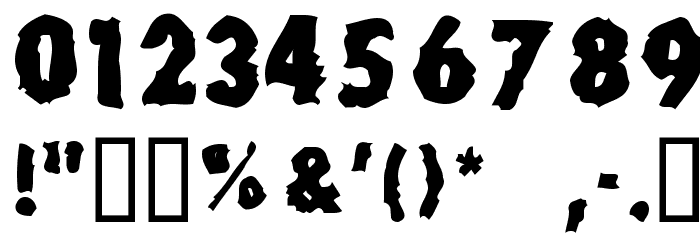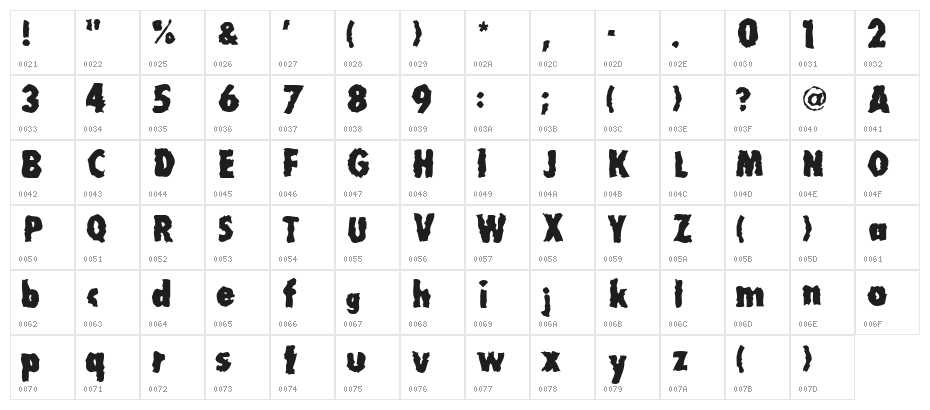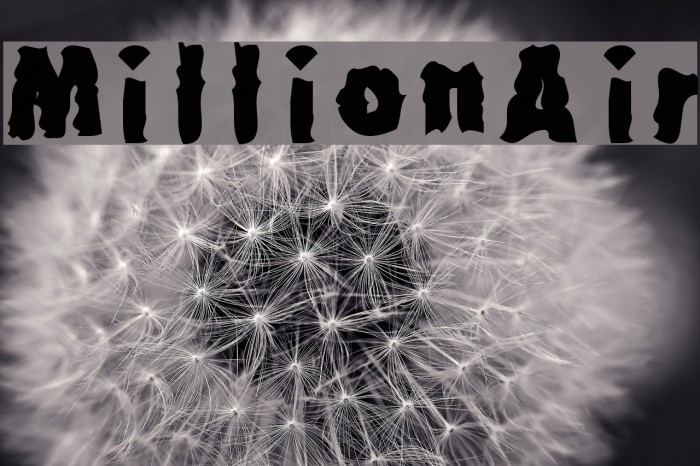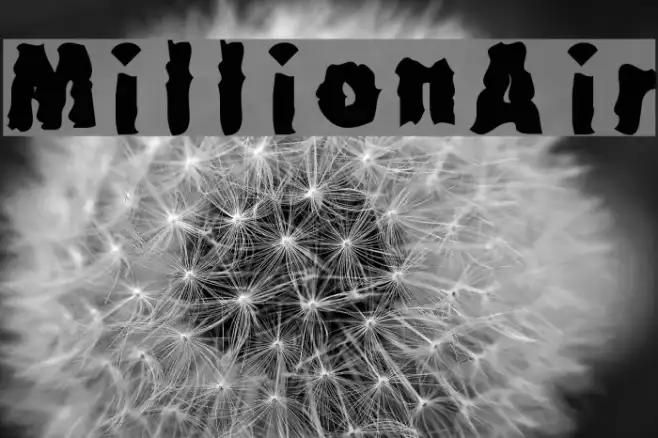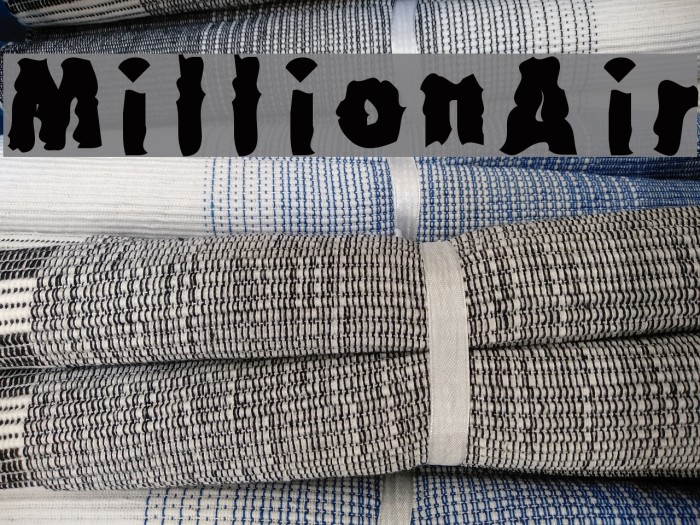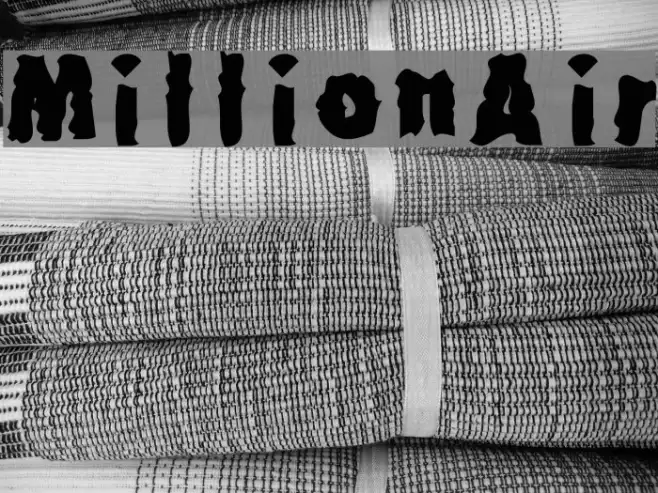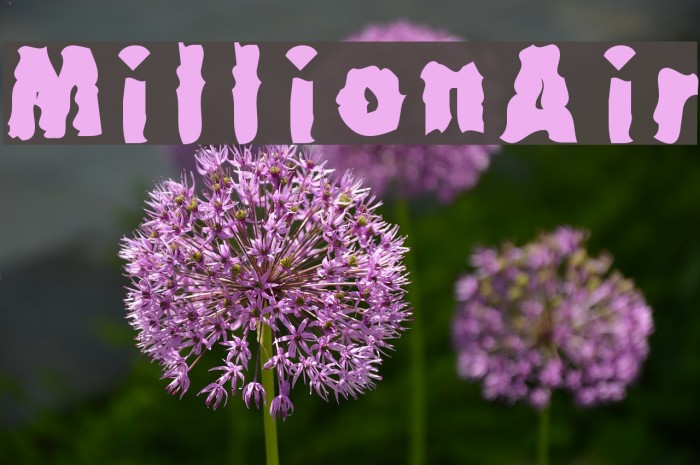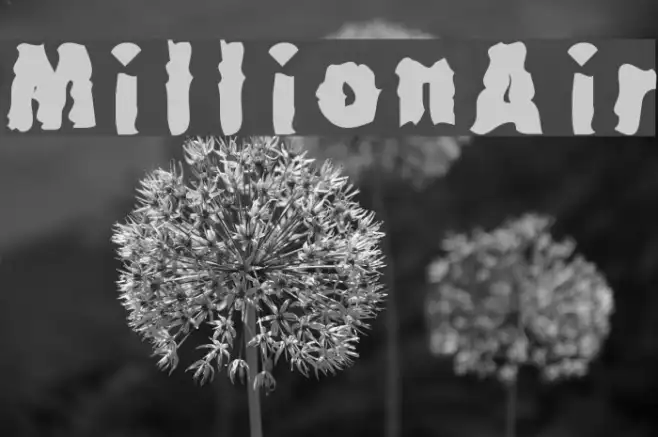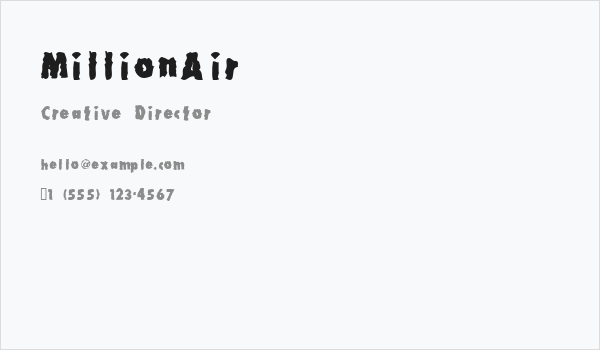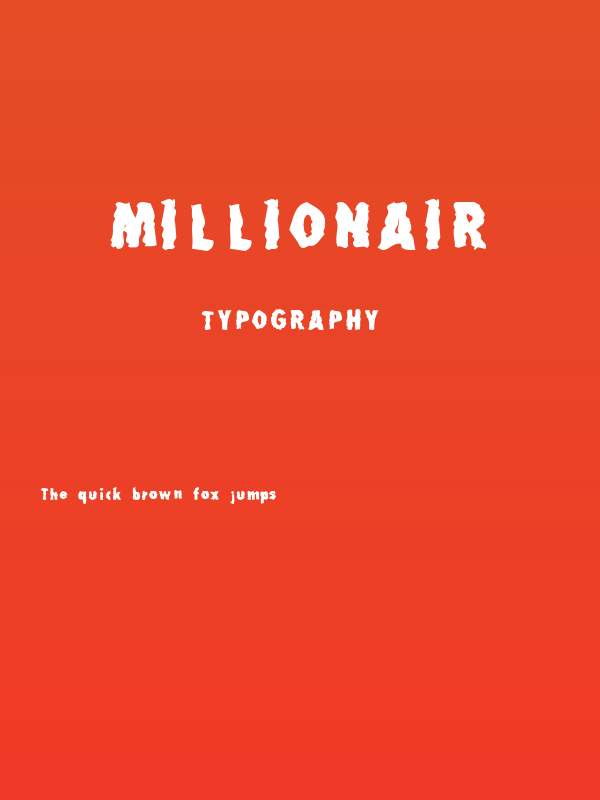
MillionAir Font
MillionAir Description
This font features a bold and rugged design with a distressed, textured appearance. Each character appears as if it has been carved or eroded, giving it a unique, organic look. The uppercase and lowercase letters maintain a consistent style, with irregular edges and varying thicknesses that add to the font's dynamic and eye-catching nature. The numerals and special characters follow the same design principles, ensuring a cohesive look across all elements. This font's boldness and distinctive style make it suitable for projects that require a strong visual impact.
Proposed ProjectsIdeal for posters, album covers, branding, and any design needing a bold, impactful typeface.